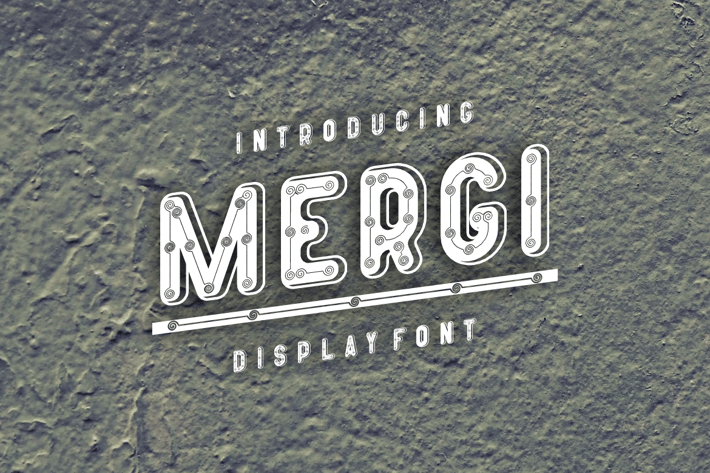
MERGI FONT
Introducing our new product MERGI FONT - Modern Font
MERGI FONT - Modern Font is a bold and authentic display font. The font is suitable for any branding project like logo, t-shirt printing, esport, and many more. outstanding in a wide range of contexts.